Step into the next generation of typography with this curated selection of future-class fonts. Defined by sharp geometry, innovative letterforms, and a strong technological mood, these typefaces are created for designers who want their work to feel modern, progressive, and visually striking. Ideal for tech branding, gaming projects, digital interfaces, posters, and experimental concepts, this collection brings a clean sci-fi spirit and confident energy to any design.
Raxon Font
Raxon is a futuristic mecha display typeface inspired by industrial design and sci-fi robotics. With its bold, mechanical shapes and powerful presence, itβs perfect for headlines, branding, posters, and tech-driven or futuristic projects.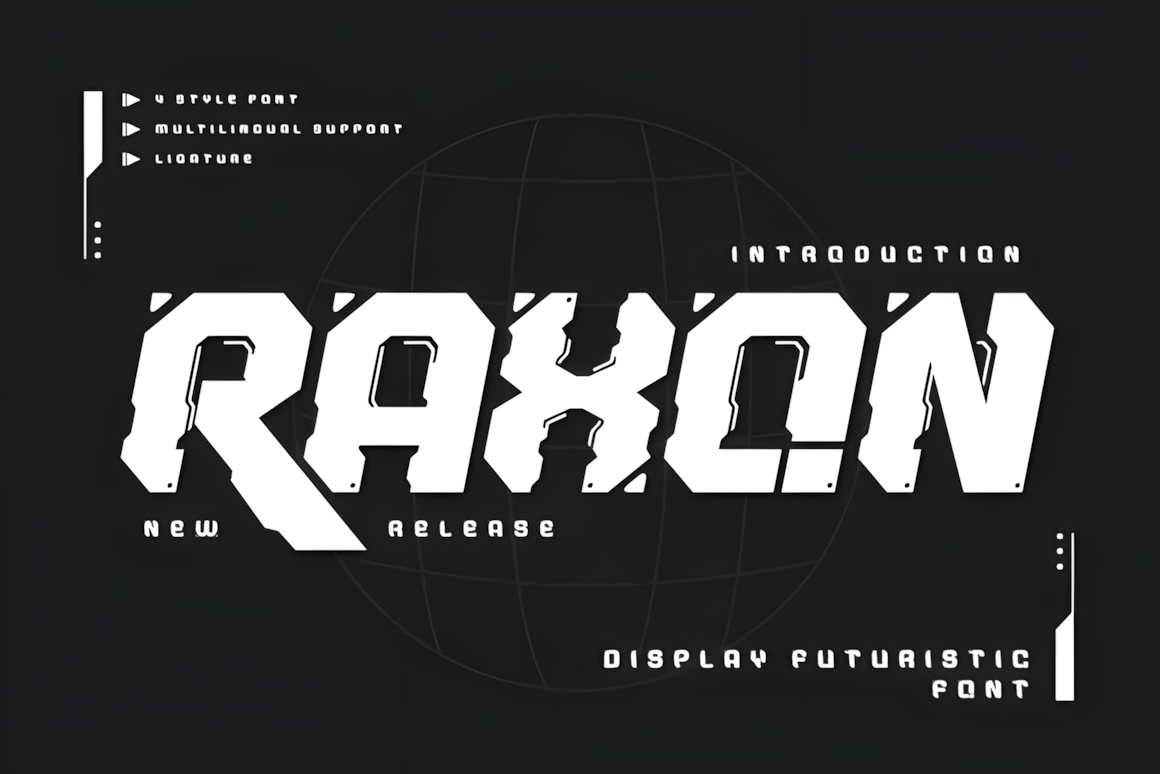
Hackd Font
Hackd is a bold cyberpunk font inspired by neon-lit futuristic cities and rebellious digital culture. With sleek lines and a sharp sci-fi aesthetic, itβs ideal for game interfaces, movie titles, tech branding, and album covers that need an edgy, dystopian feel.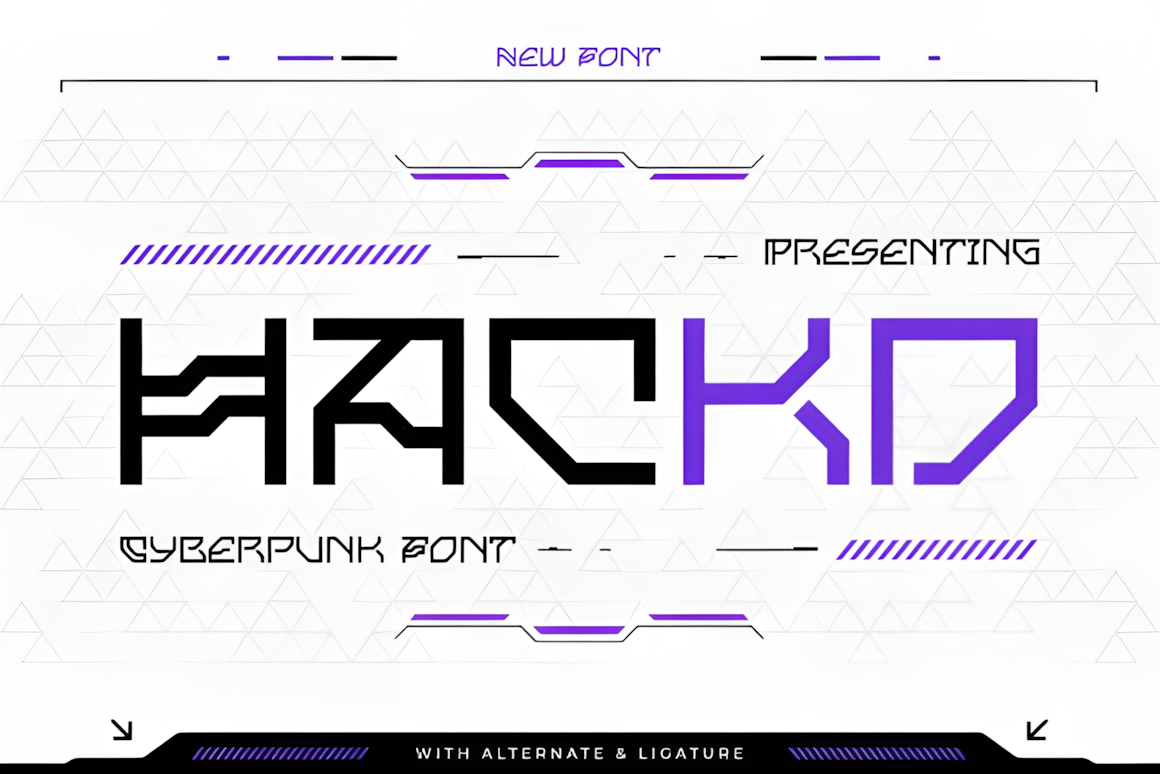
Evomorph Font
Evomorph is a futuristic typeface where innovation and aesthetics merge into a bold, forward-thinking design. With sleek, dynamic letterforms that blend technology and artistry, itβs ideal for sci-fi visuals, tech branding, and modern creative projects that demand a cutting-edge edge.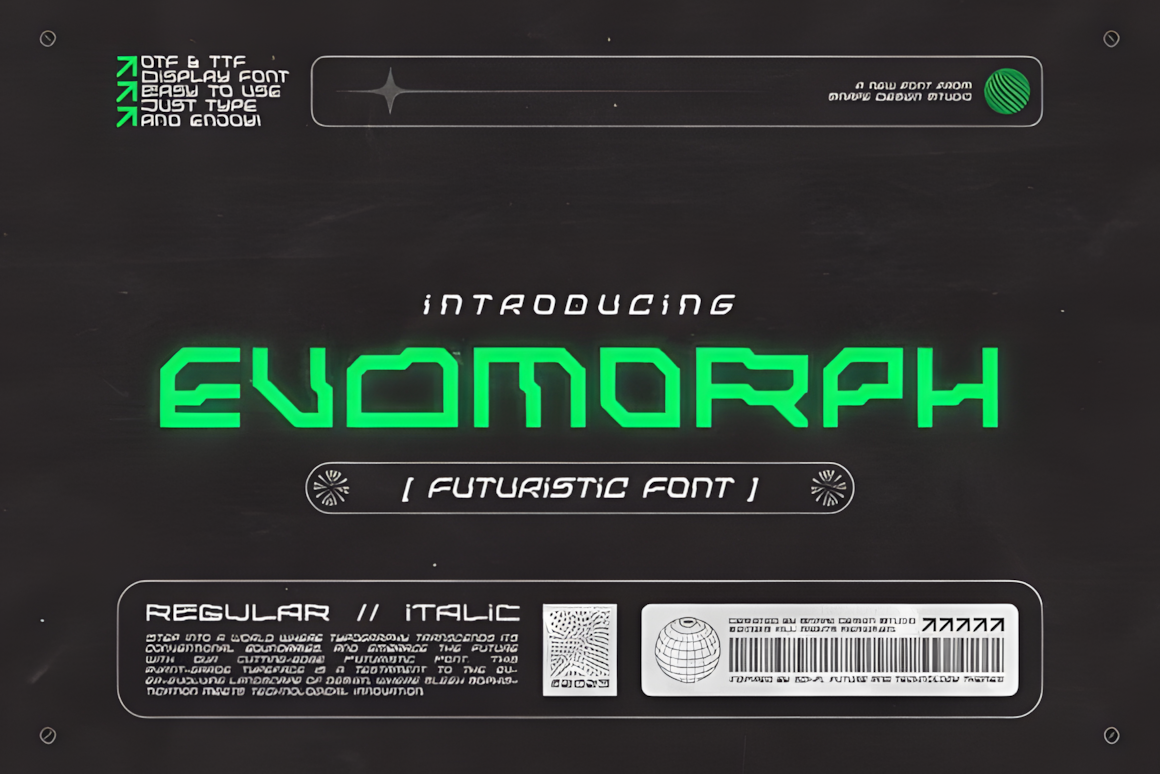
Space Gome Font
Space Gome is a futuristic typeface with smooth rounded edges that creates a sleek, modern, and elegant look. Its unique character shapes add visual interest, making it perfect for esports logos, NFT projects, movie covers, and other futuristic design concepts.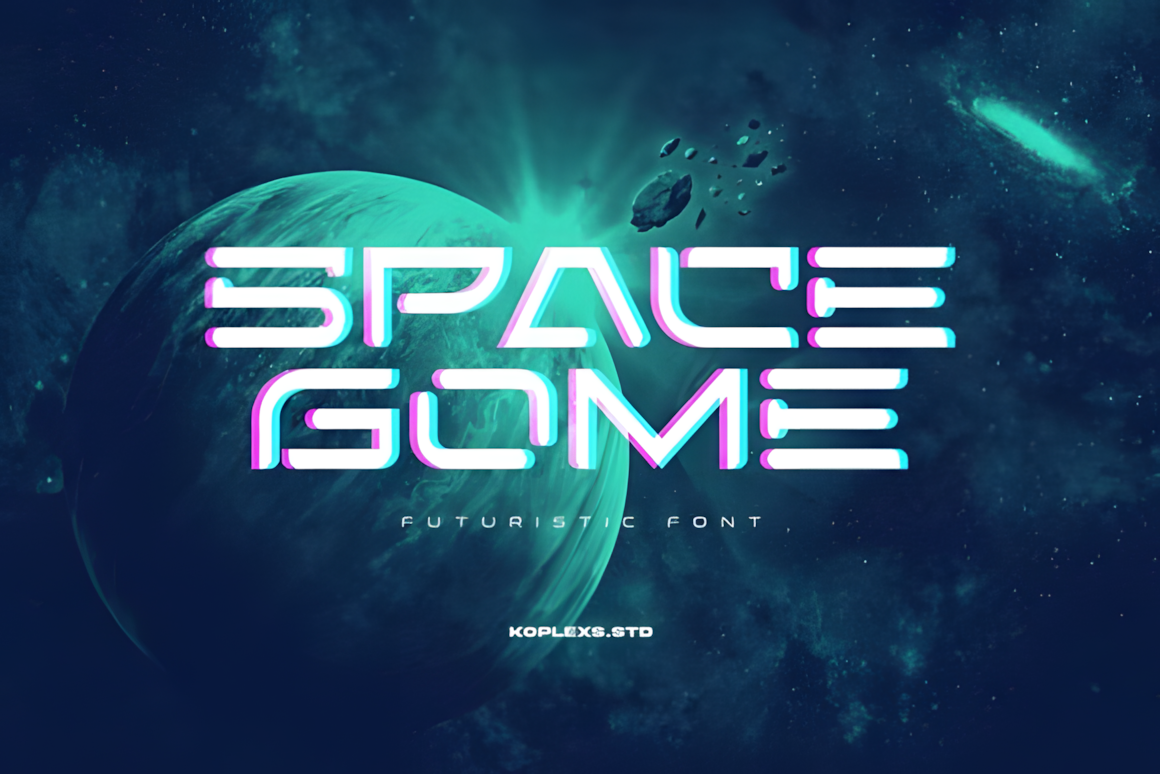
Enos Font
ENOS Fonts is a futuristic typeface collection built for bold, forward-thinking design. With distinctive and striking letterforms, it empowers creators to craft visionary visuals that stand out in modern digital spaces.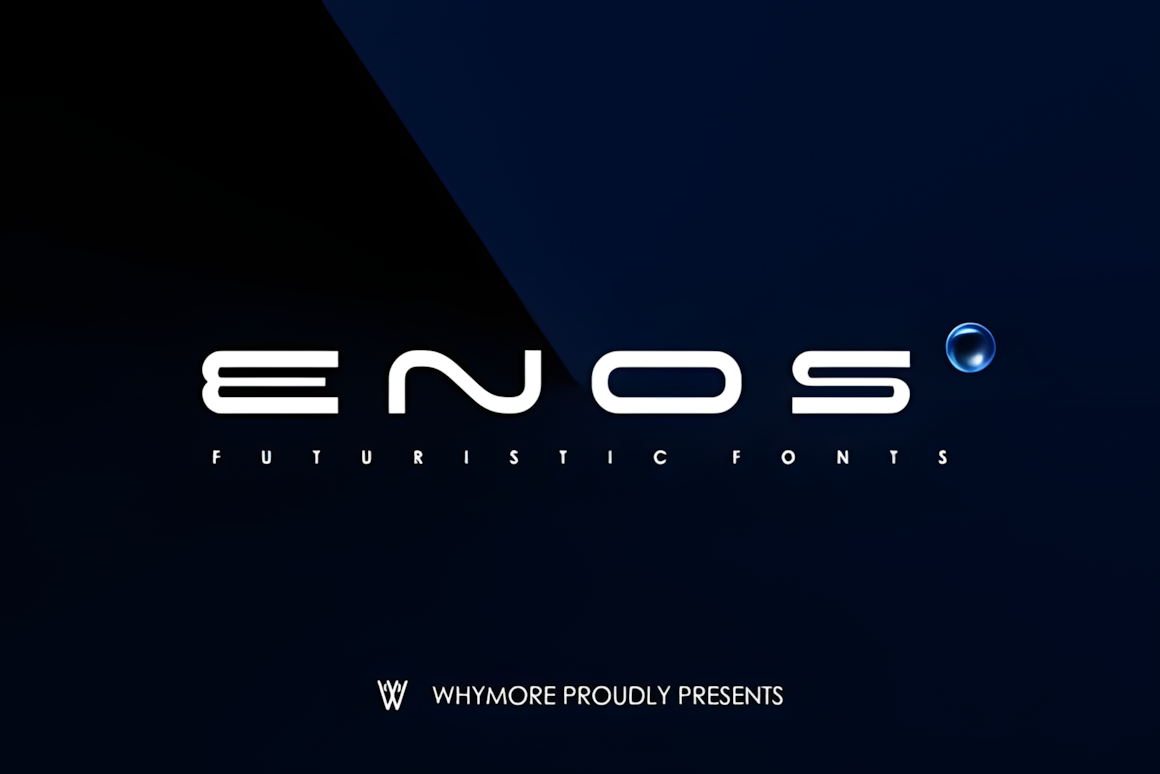
Nemuz Font
Nemuz is an avant-garde narrow bold typeface created for high-tech logos and futuristic brand identities. Its sharp angles, condensed structure, and geometric cutouts convey speed, precision, and digital innovation, making it ideal for gaming, tech, and automotive projects.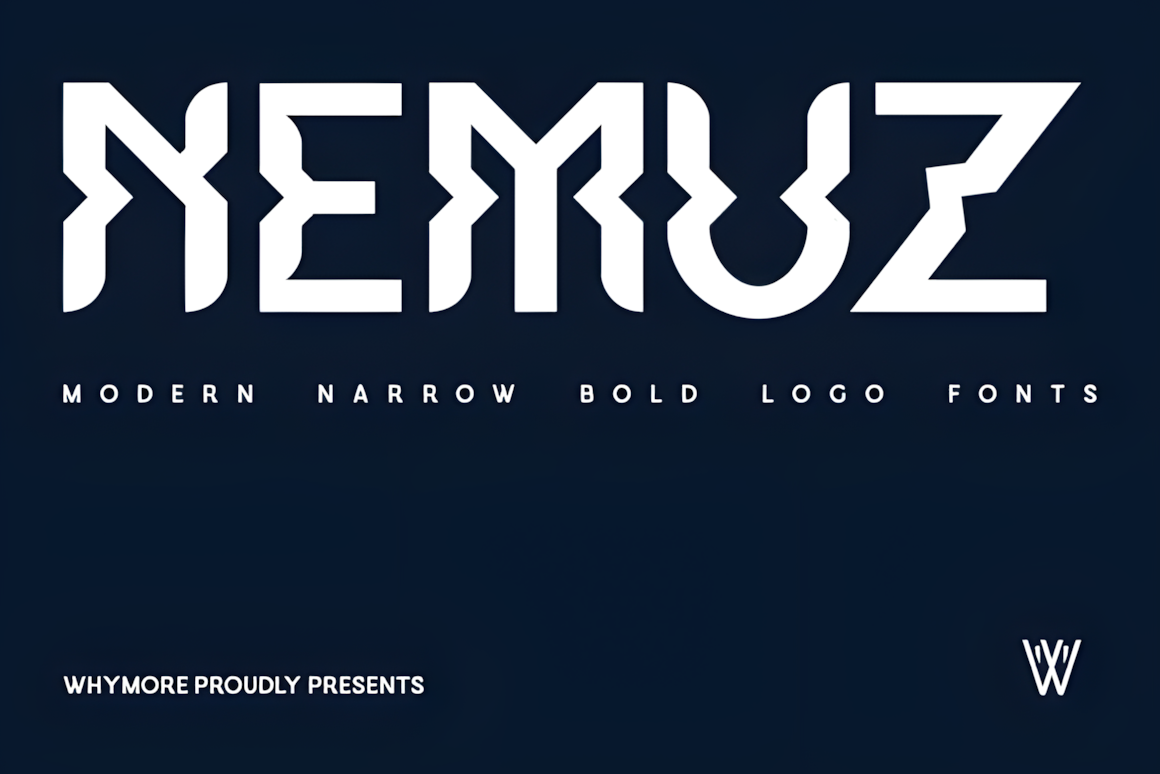
Verse Robo Font
Verse Robo is a dystopian futuristic font that captures the raw energy of a cyberpunk metropolis where technology and rebellion collide. With sharp, mechanical forms and a bold digital presence, itβs perfect for sci-fi branding, game titles, posters, and futuristic visual identities.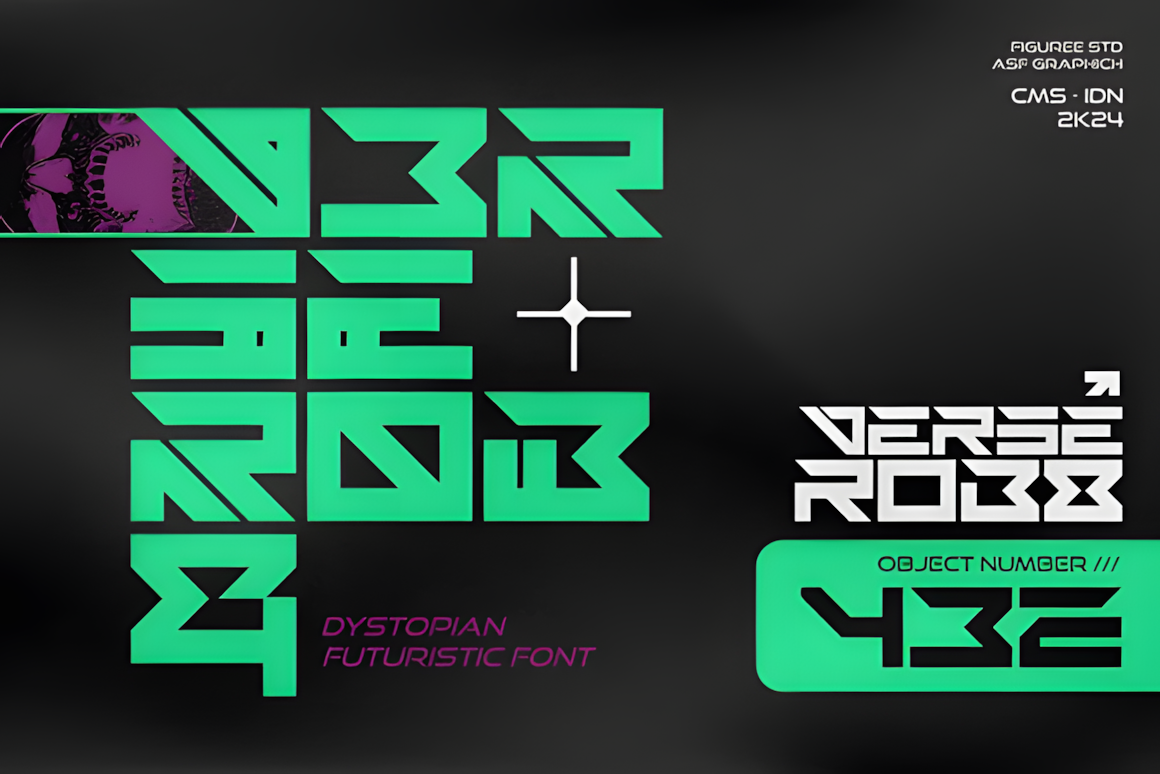
Ganeon Font
GANEON is a futuristic sans-serif font with sleek, modern lines and elegant alternates that add a creative twist. Perfect for tech branding, sci-fi projects, posters, and logos that need a sophisticated yet forward-thinking look.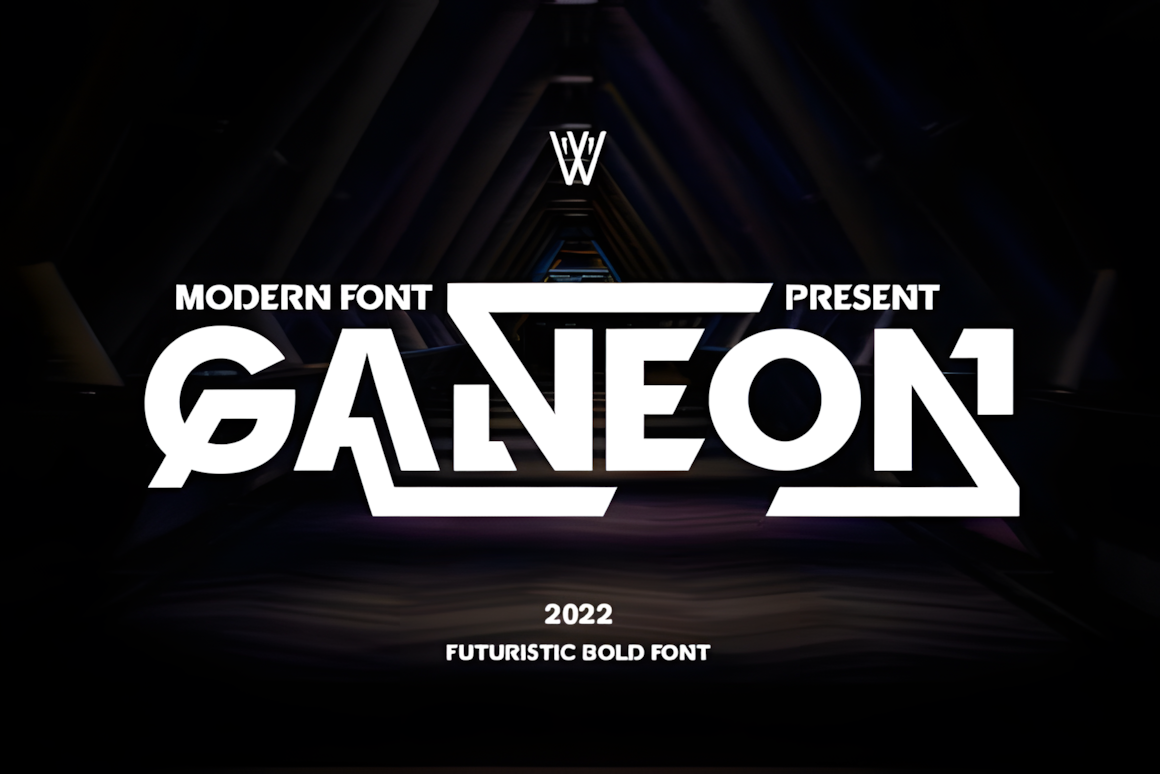
Cannet Agency Font
Cannet Agency is a bold cyberpunk display font with sleek, futuristic lines and a techno-inspired edge. Perfect for sci-fi posters, futuristic branding, game titles, and any project that demands a strong, high-tech visual impact.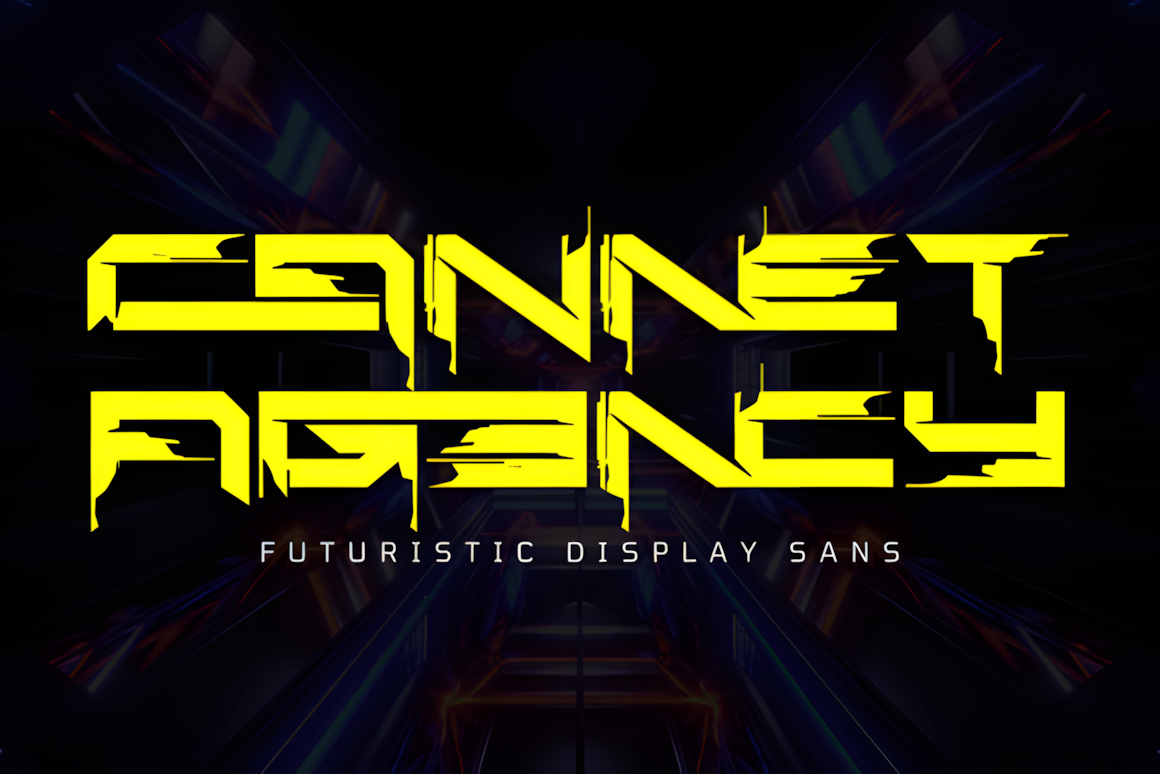
Warix Font
Warix is a futuristic cyberpunk font that blends technological sharpness with minimalist elegance. Its sleek, decorative forms make it ideal for sci-fi branding, tech projects, game titles, and designs that aim to convey a forward-looking, high-tech aesthetic.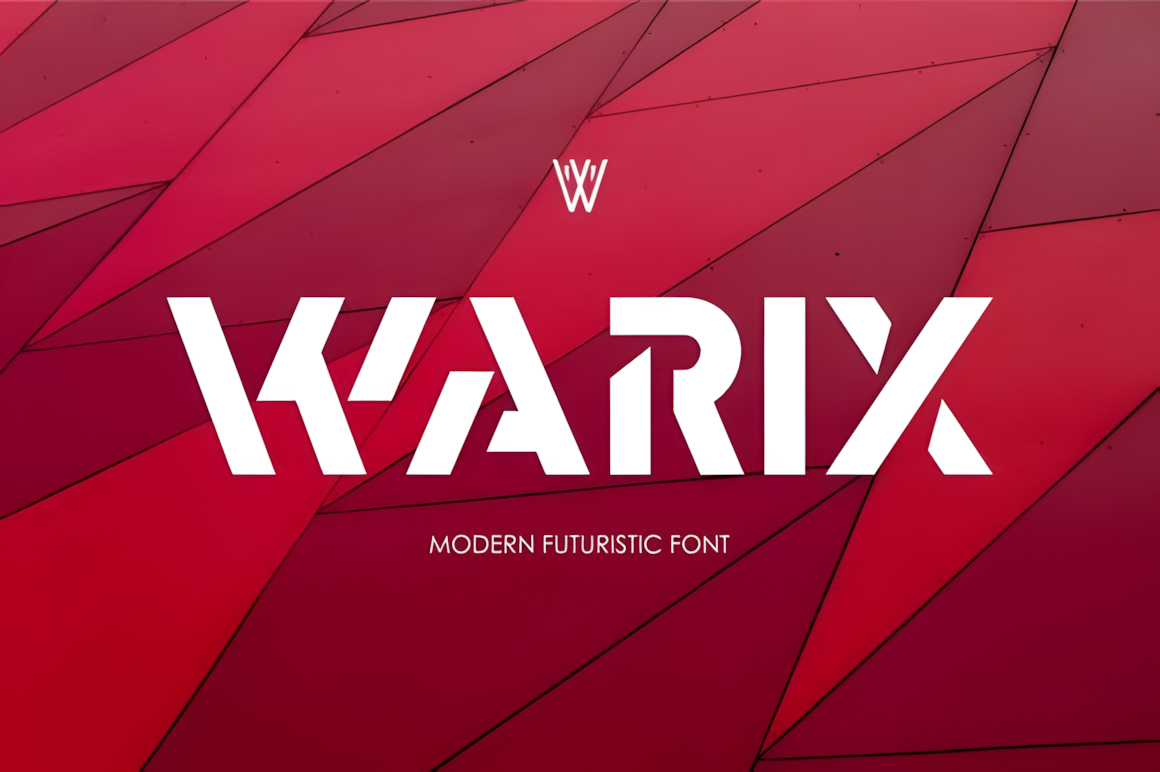
Designed for Tomorrowβs Visual Language β¨
This future-class font collection is built for creators who want their designs to feel innovative, confident, and ahead of their time. From digital products and branding to experimental graphics and sci-fi concepts, these typefaces help transform ideas into bold visual statements that reflect the future of design.